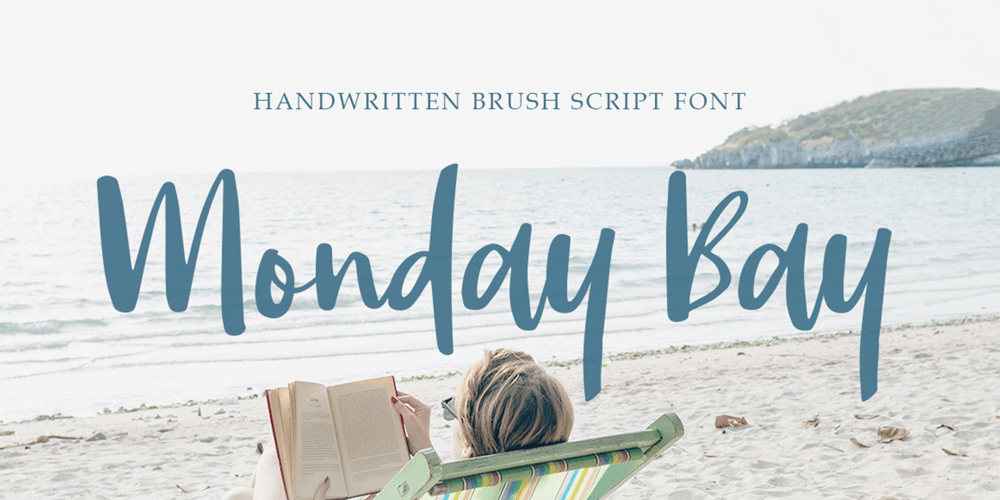
Monday Bay Font Family was designed by Hendry Juanda and published by Letterhend. Monday Bay contains 1 styles and family package options. Monday Bay is a cute handwriting brush font that you can use for many things. Perfect for cute quotes, branding, and much more.